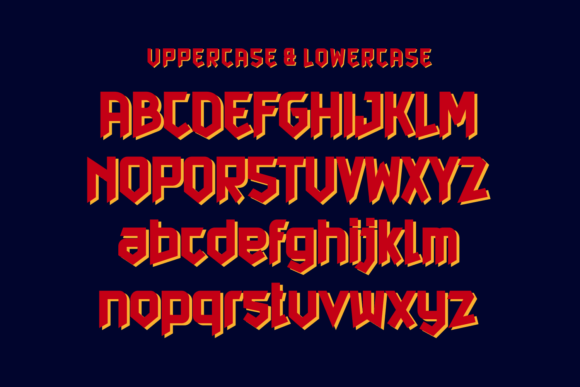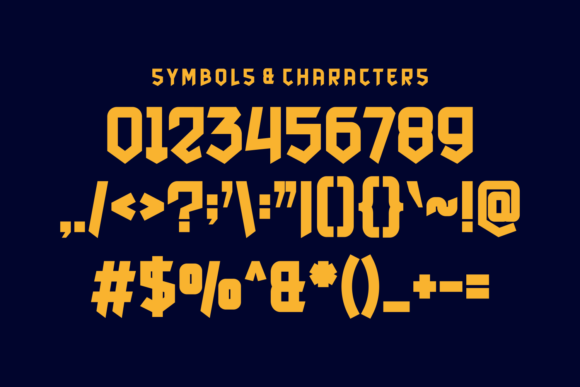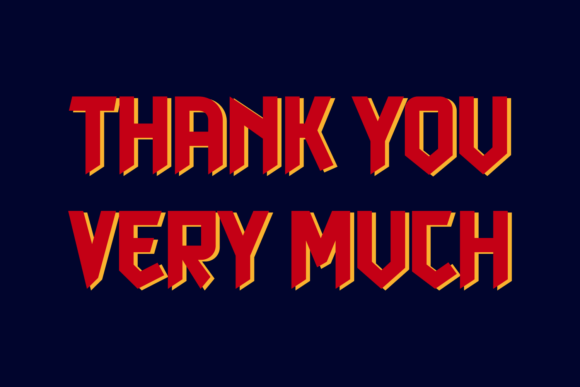
Introduction to Marus Font
Maurs is a unique and interesting display font.
A little bit quirky, this font looks incredibly adept on a wide variety of contexts .
Key Features of Marus Font